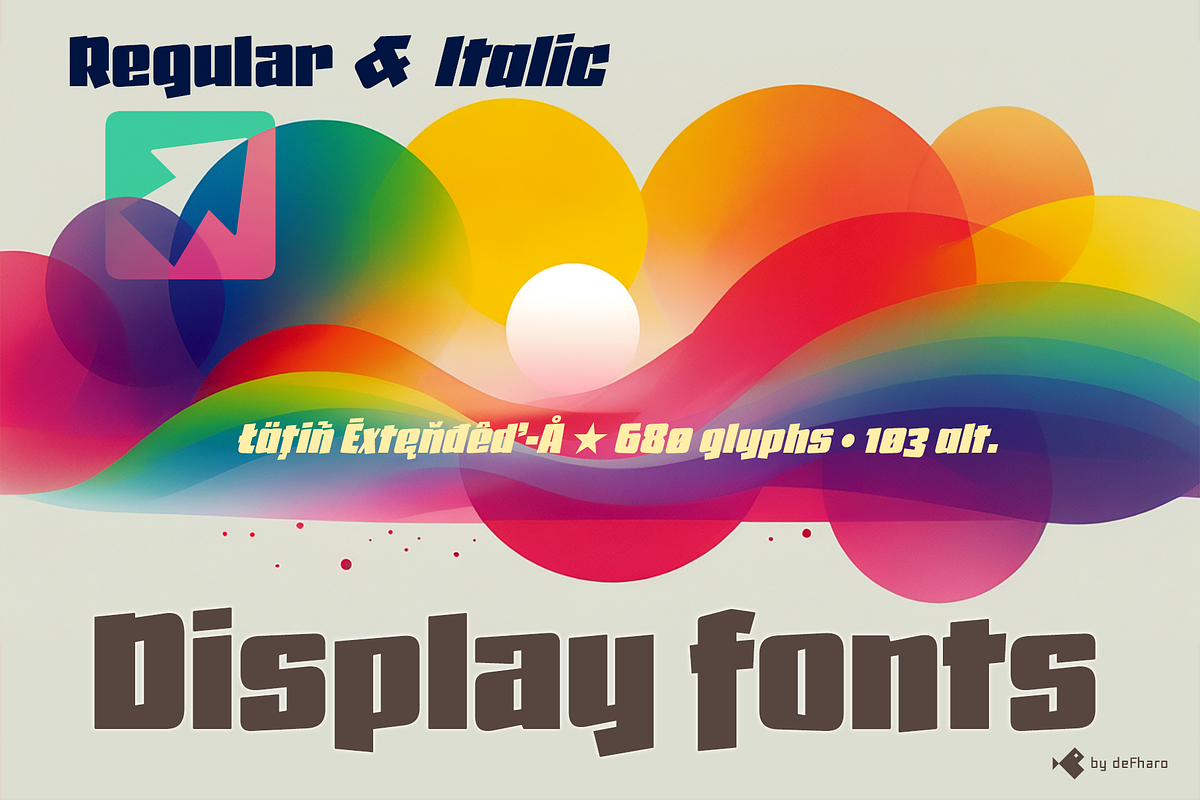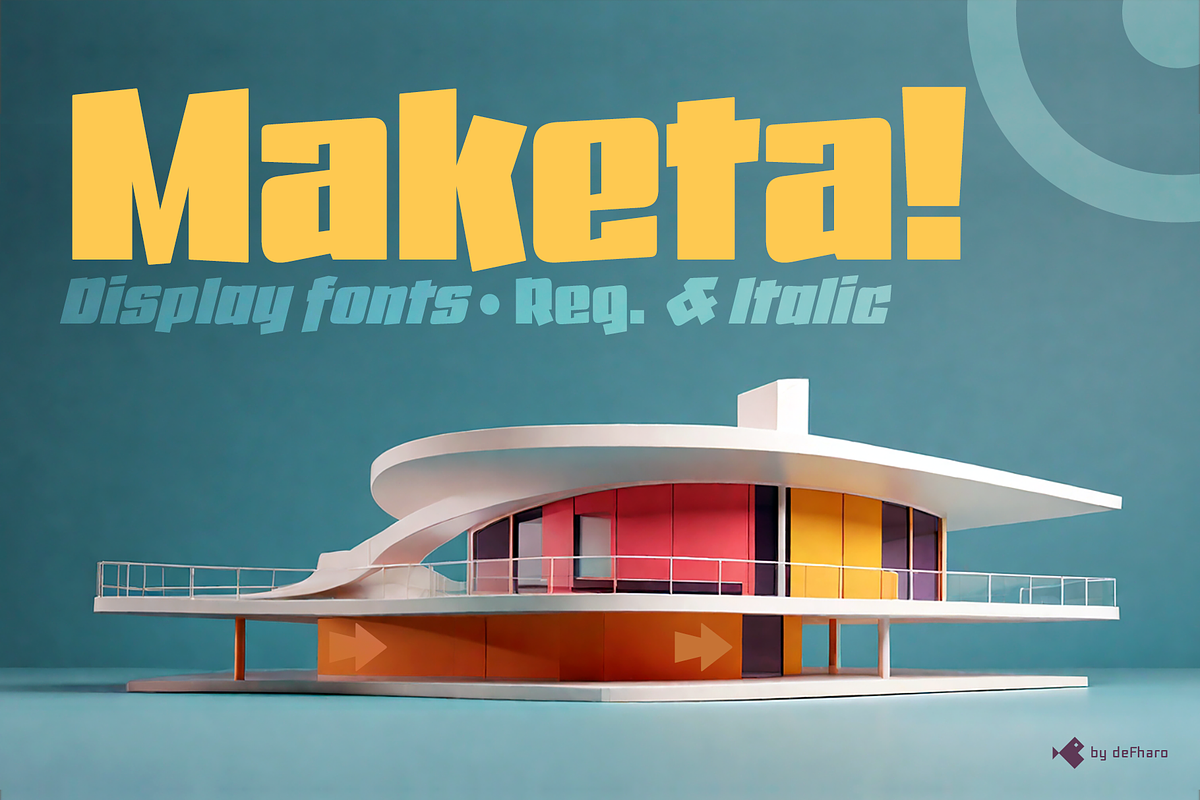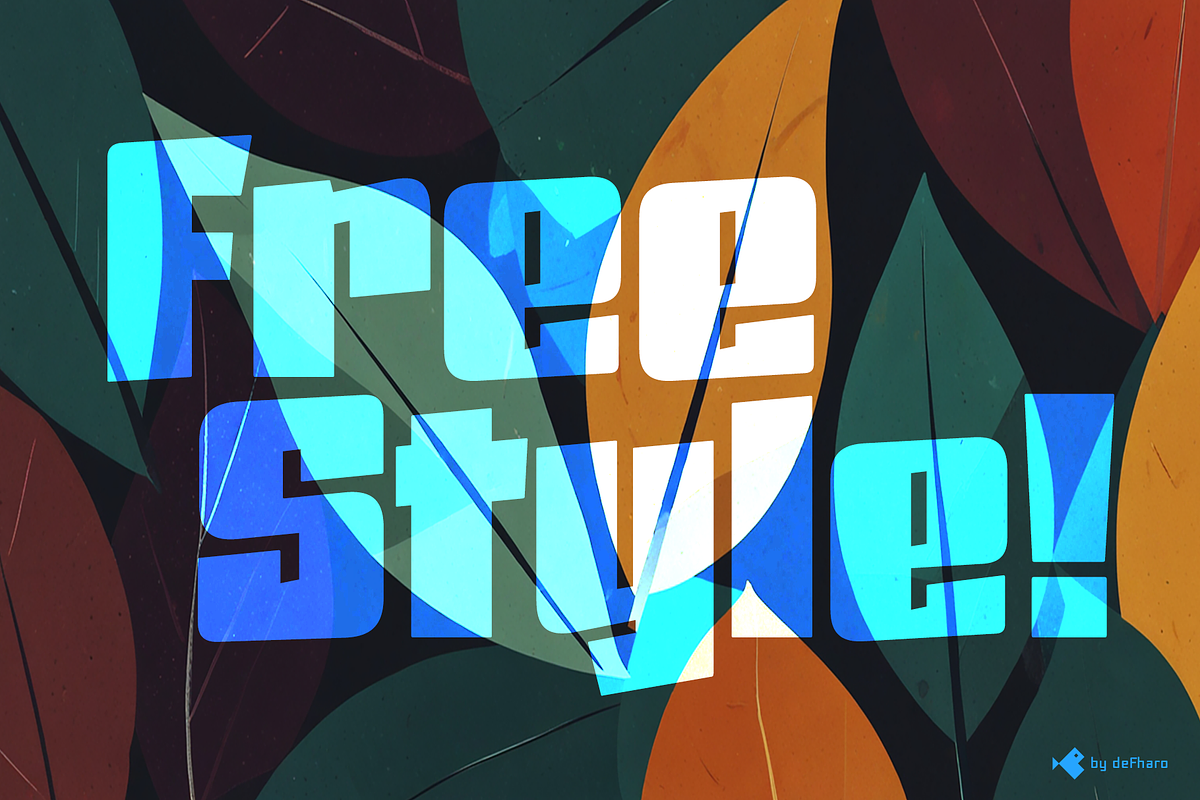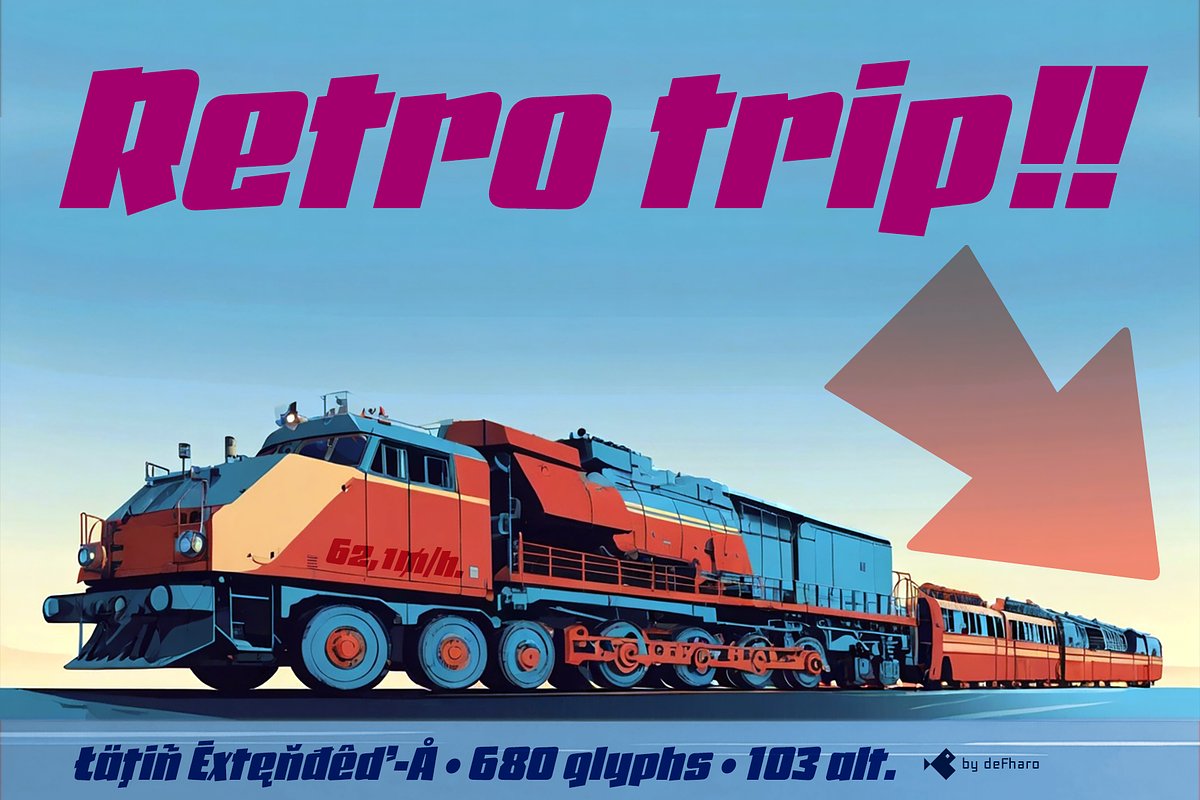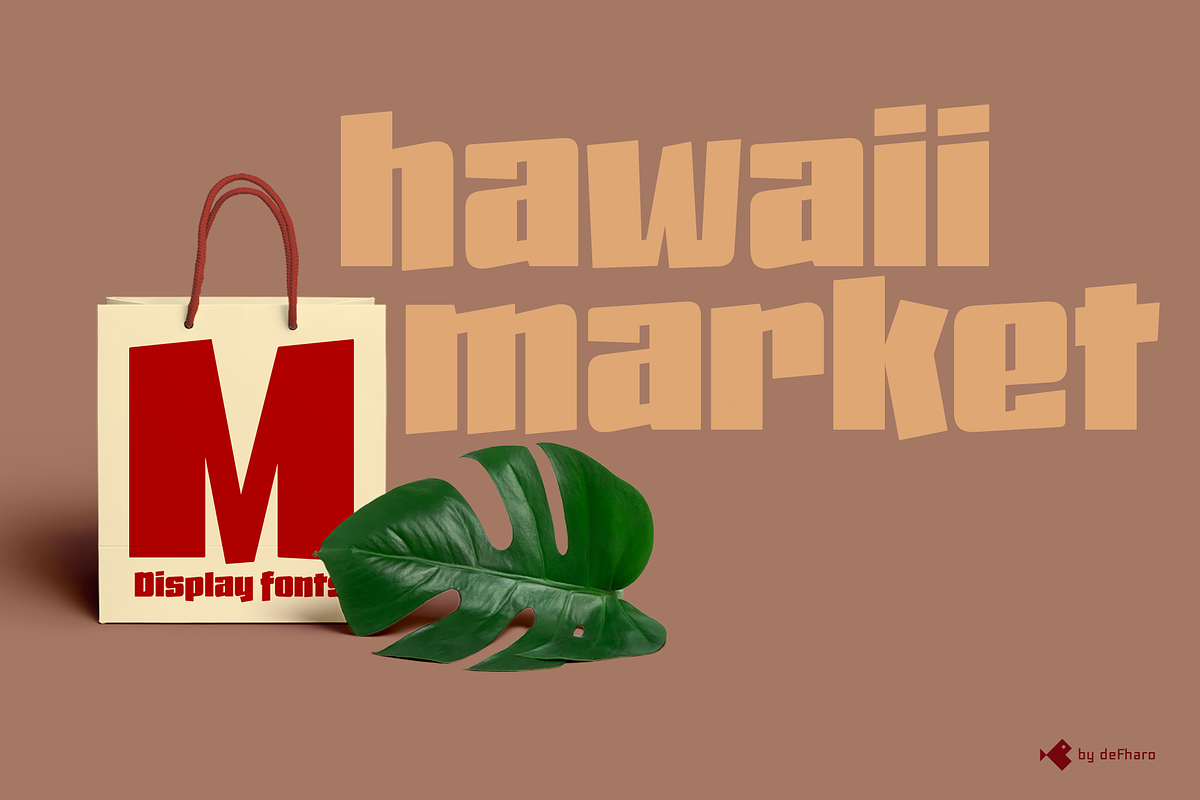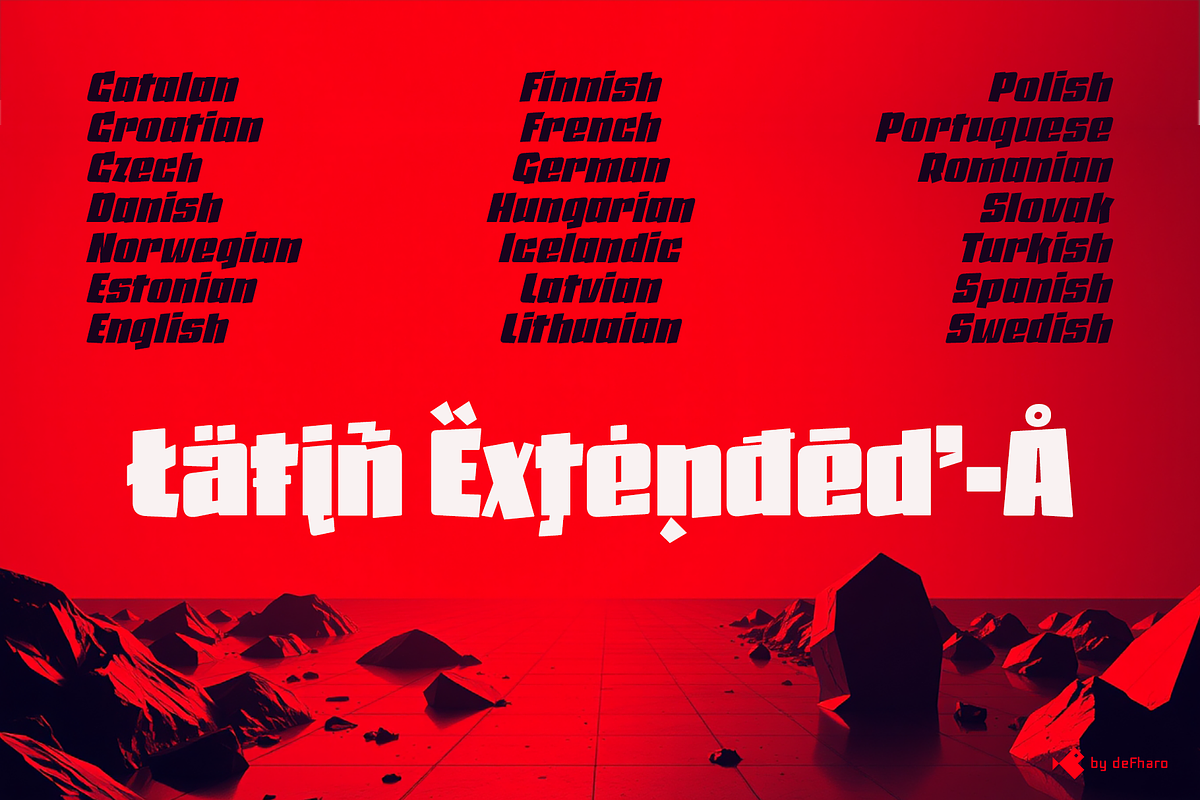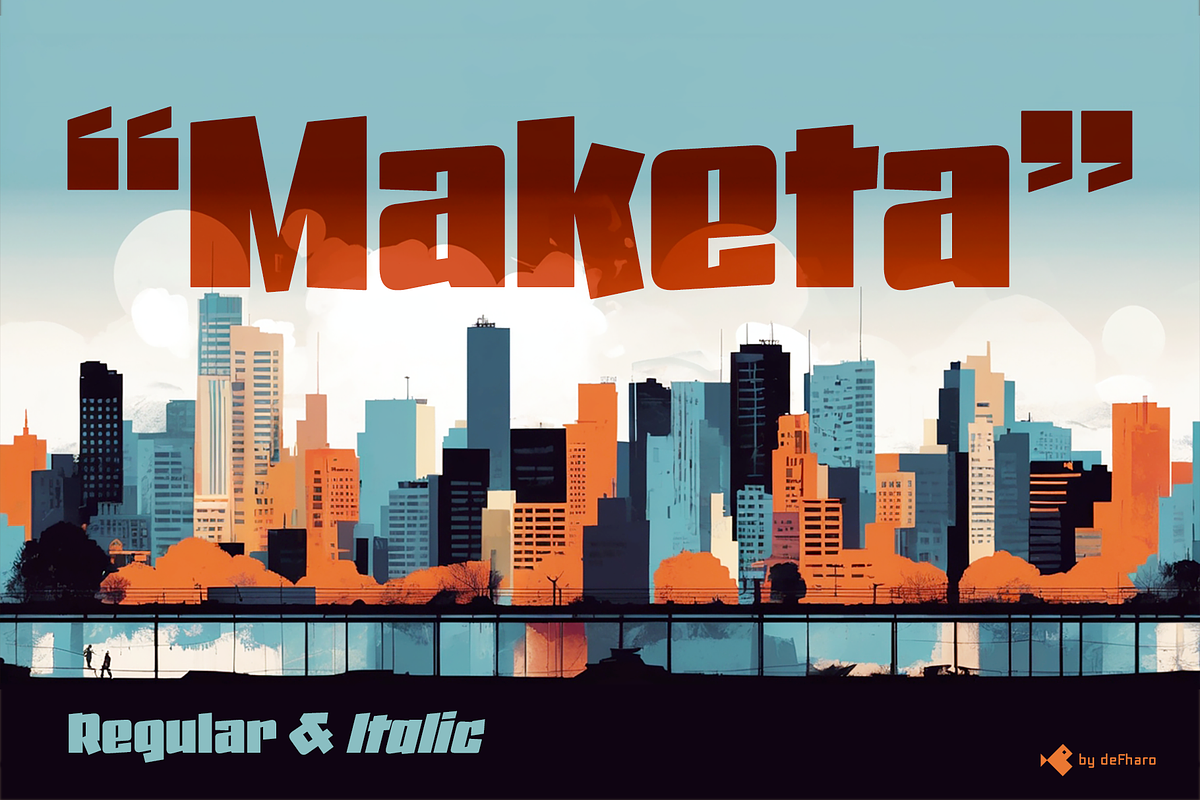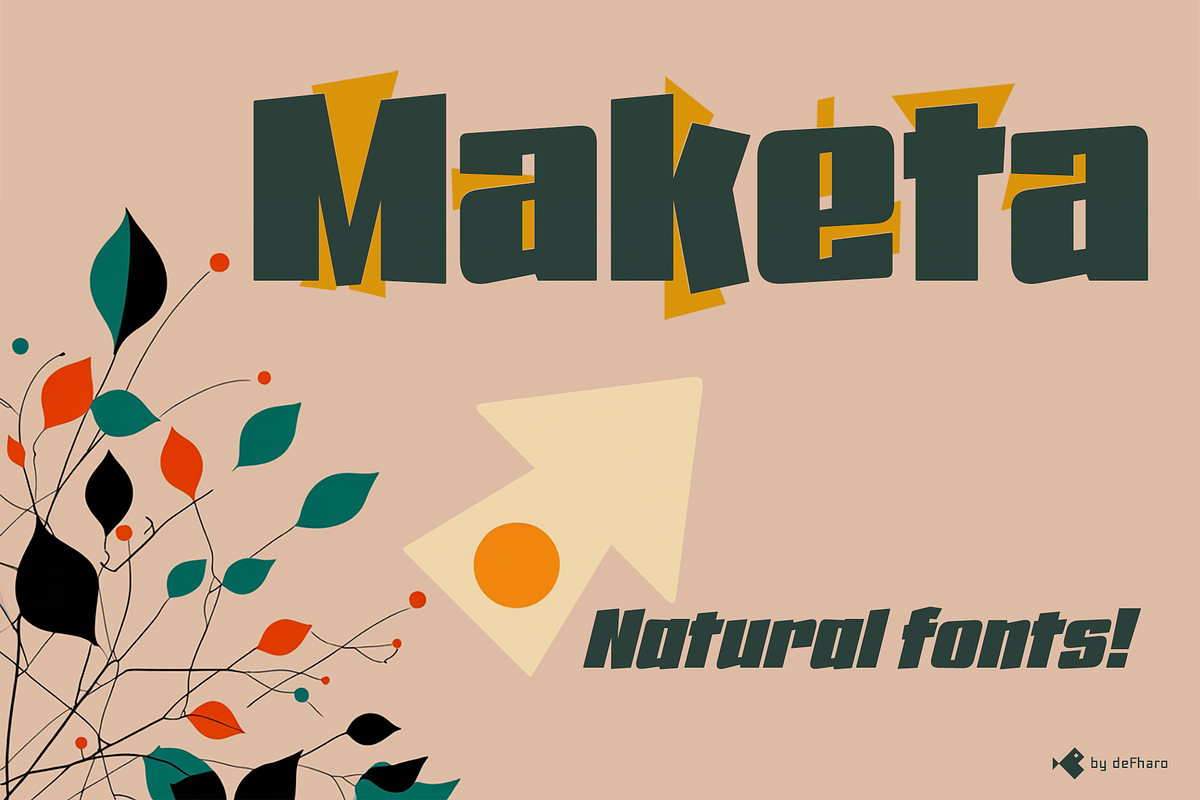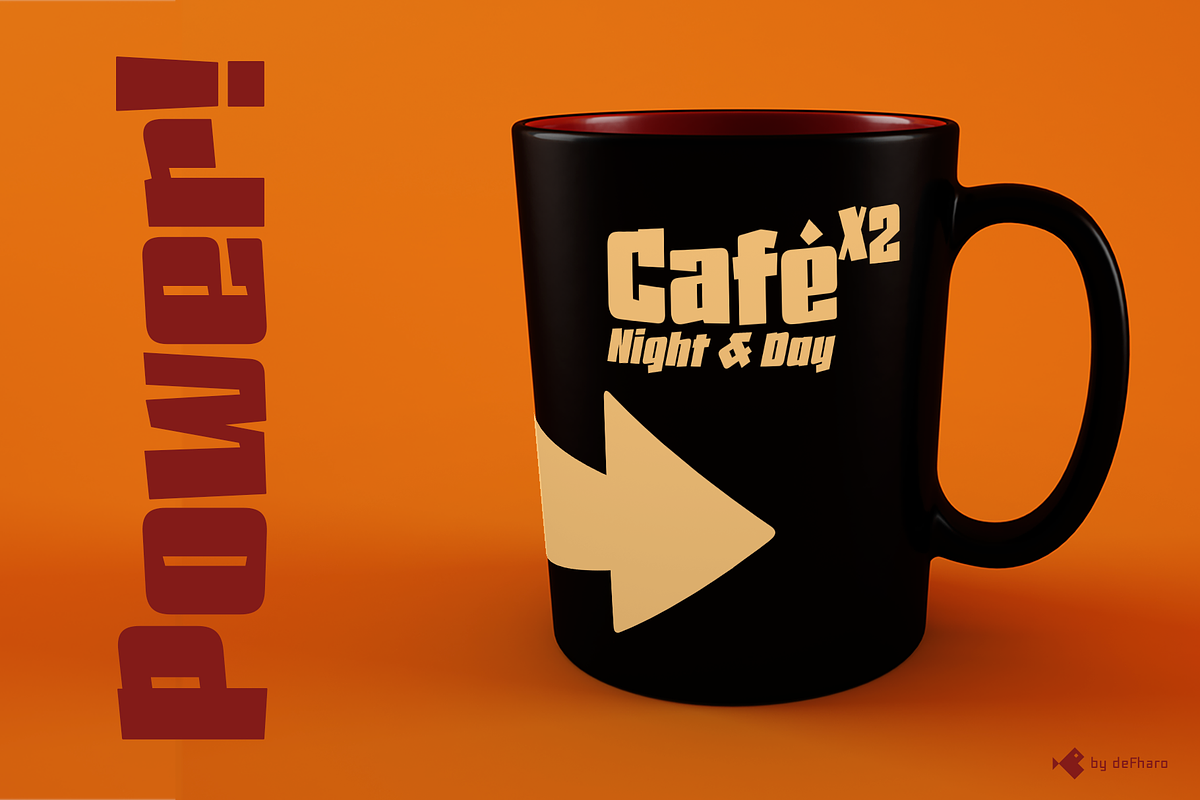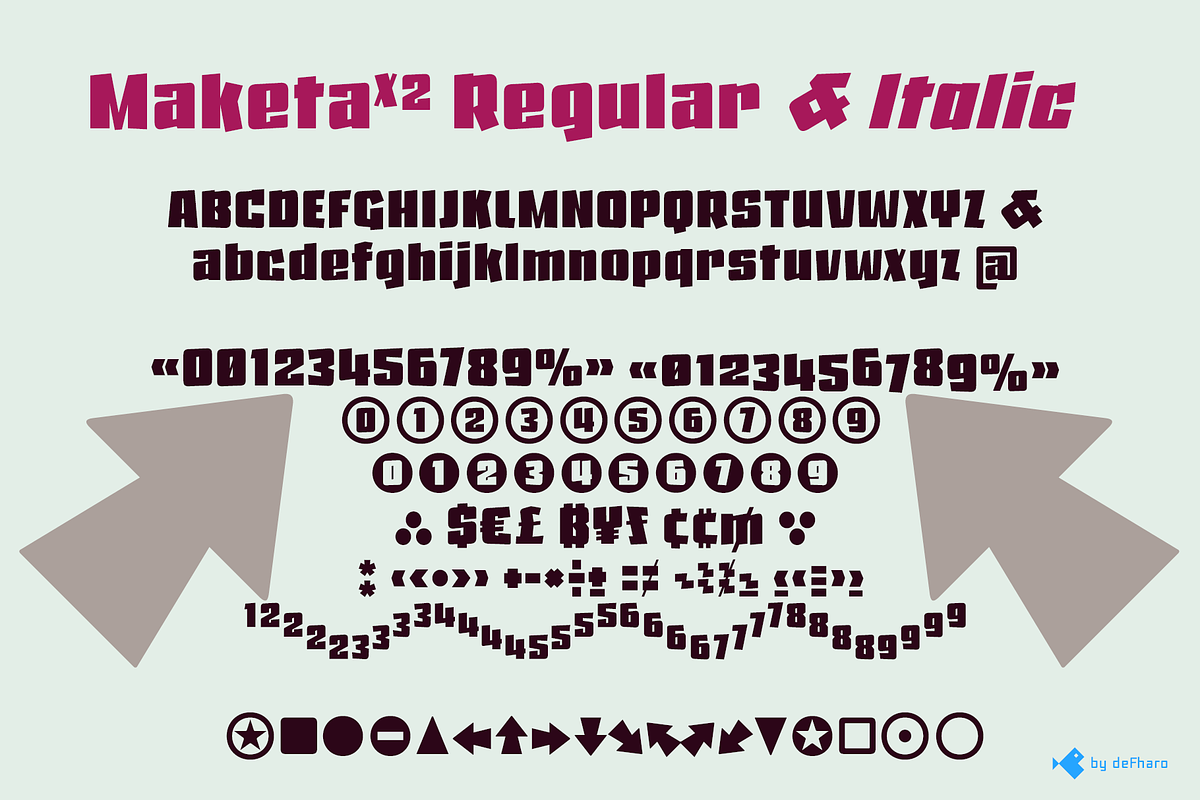
Maketa display
Maketa Display is a typeface that combines impact, dynamism, and sophistication. Its stroke evokes an aesthetic somewhere between calligraphy and modernist fonts. It's not just a typeface; it's a statement of energy, movement, and fun: a celebration of vibrant, contemporary designs.
With a robust structure, pronounced contrasts, and a fresh, positive style! Maketa is the perfect choice for projects seeking visual impact.
🔻Maketa Display - 02 fonts
Regular & Italic
687 glyphs. Latin Extended-A. 103 alternates.
Maketa includes the symbol of Bitcoin and currency symbols.
OpenType Features: Additional languages, All Alternates, Capital Spacing, Contextual Alternates, Denominators, Discretionary Ligatures, Fractions, Historical Forms, Inferiors, Kerning, Localized Forms, Numerators, Oldstyle Figures, Ordinals, Petite Caps, Scientific Inferiors, Slashed Zero, Small Capitals, Standard Ligatures, Subscript, Superior letters, Superiors, Superscript.